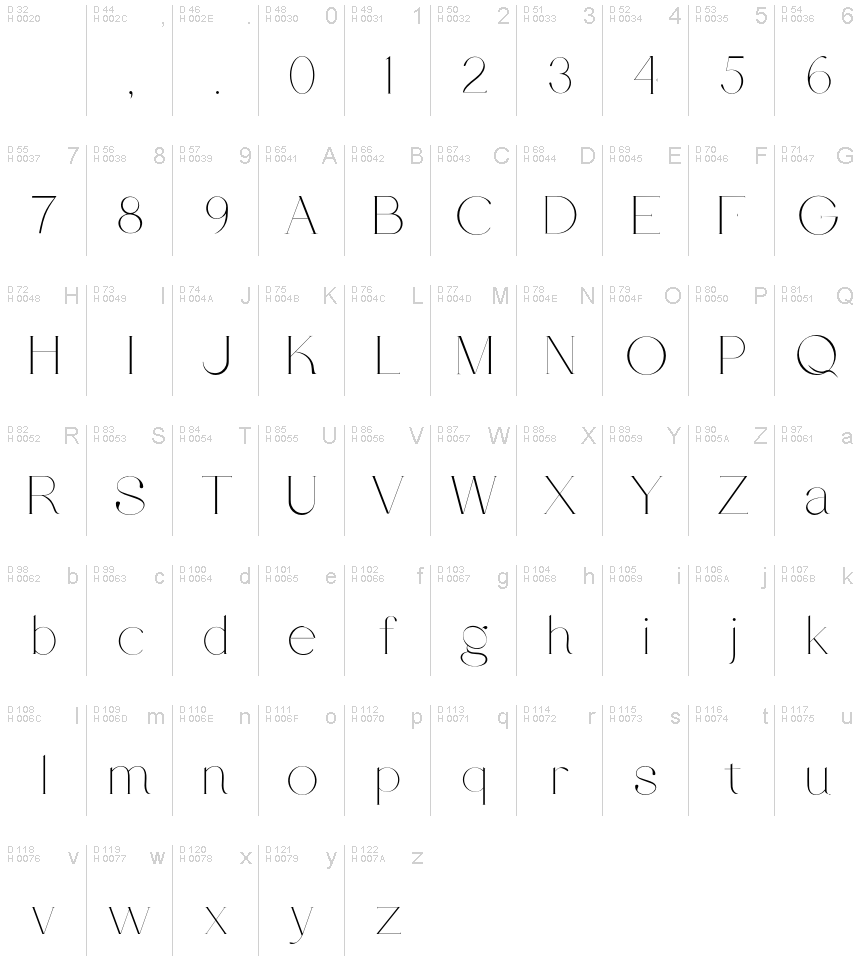
Leony-Regular
Leony font by Gholib Tammami is a modern serif font with a light and sophisticated look. The elegant appearance of the characters, combined with the contained decorative touches, allows delivering a professional impression suitable for high-end brand designs. Adding this typeface to any graphic allows better communication and general feeling to its audience. Furthermore, readability is not an issue thanks to the good balance between its wide letterforms and consistent orientations.